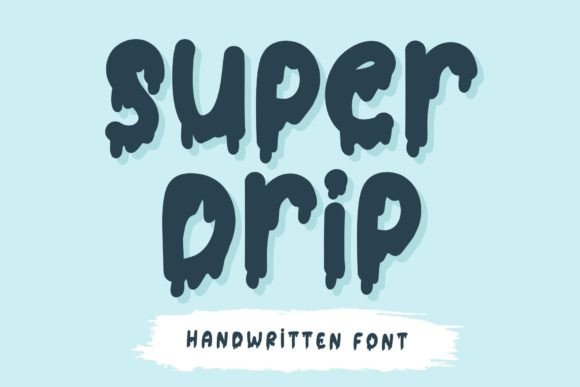
**Introducing Super Drip Font: The Ultimate Halloween Essential**
Step into the realm of spooky season with Super Drip Font, a mesmerizing decorative masterpiece that will send shivers down your spine. Crafted with meticulous detail by the renowned Brown Cupple Fonts, this font is a testament to the artistry and innovation that defines the world of typography.
Super Drip is not just a font; it's an invitation to the macabre, a canvas for your Halloween horrors. Its blood-curdling drips and bone-chilling letters paint an ambiance of spine-tingling terror that will leave an unforgettable impression on your audience.
Whether you're crafting spine-chilling invitations, spine-tingling postcards, or bone-rattling posters, Super Drip Font has the power to transform your creations into haunted masterpieces. Its versatility extends to any setting, making it the perfect choice for websites, logos, and any design that demands a touch of the supernatural.
So, embrace the darkness this Halloween with Super Drip Font, and let your creativity flow with the blood of inspiration. Let the dripping letters and skeletal forms guide you as you craft designs that will make your audience tremble with delight and fear.